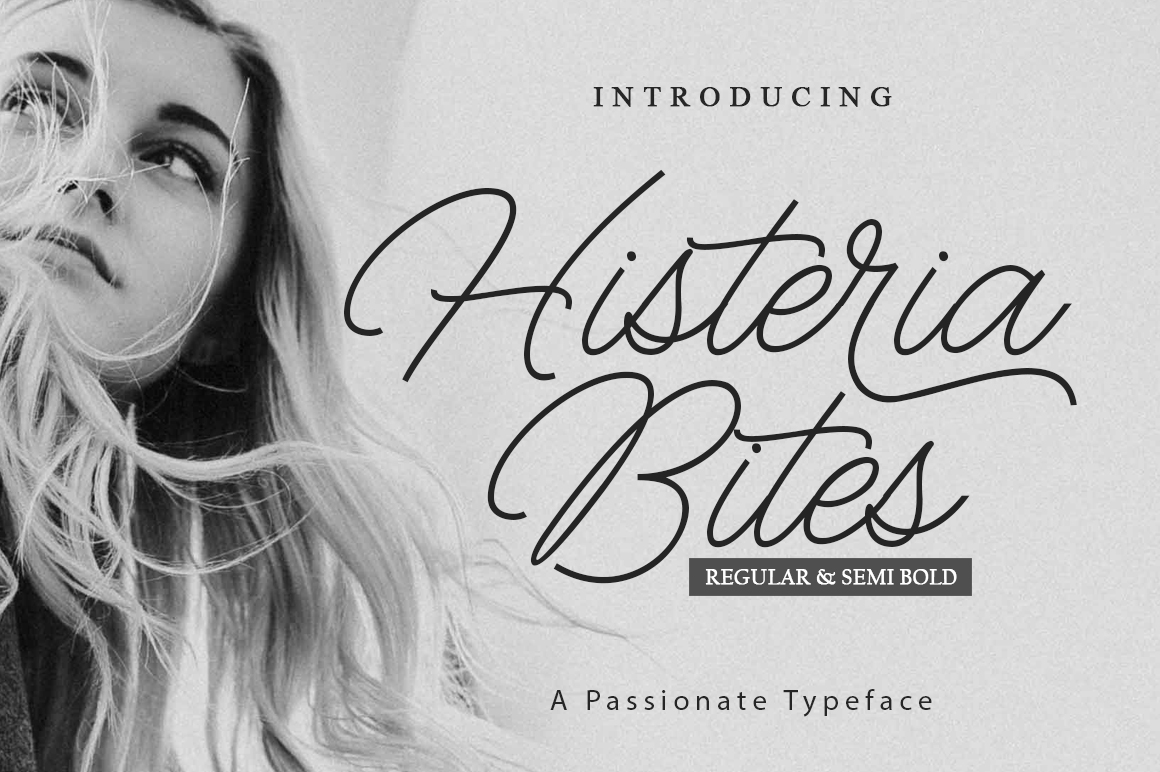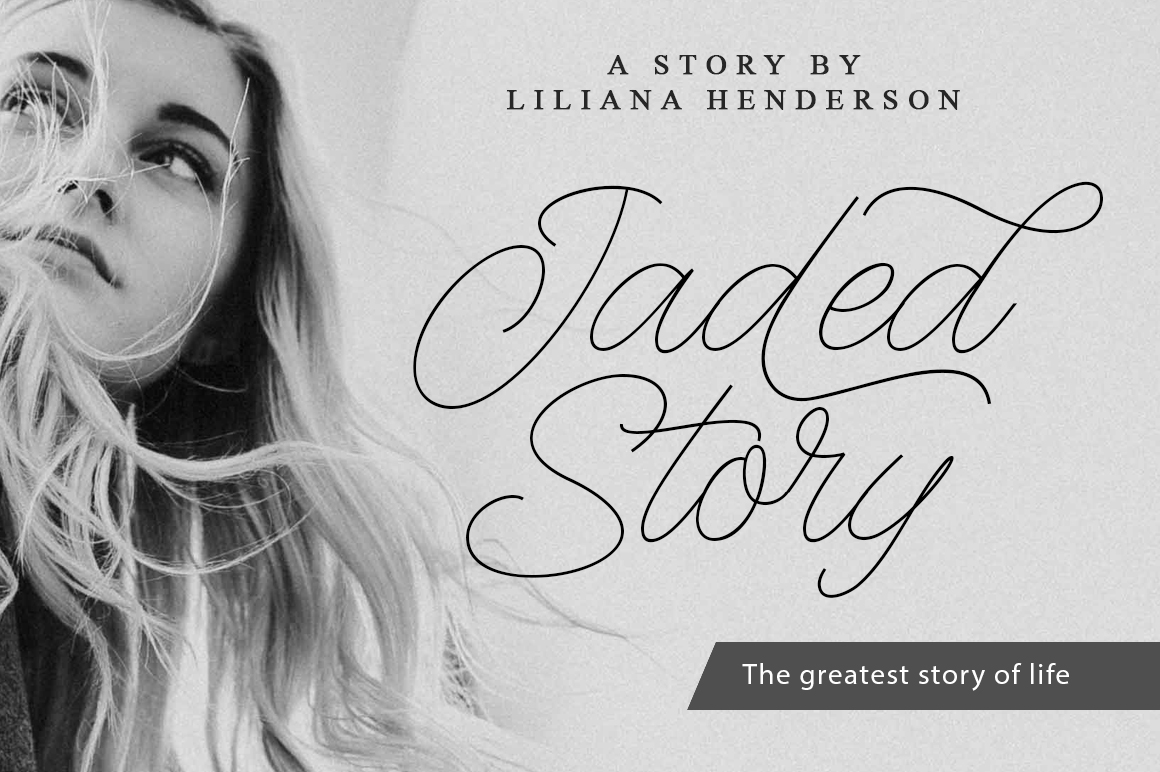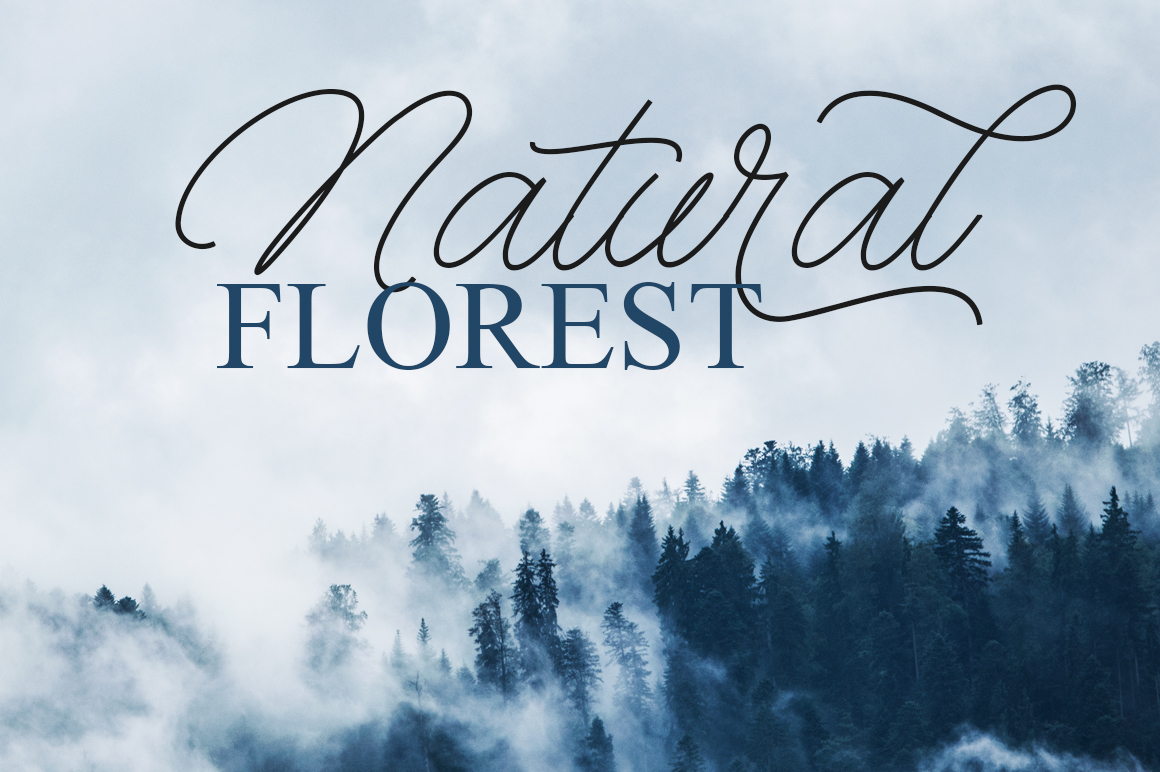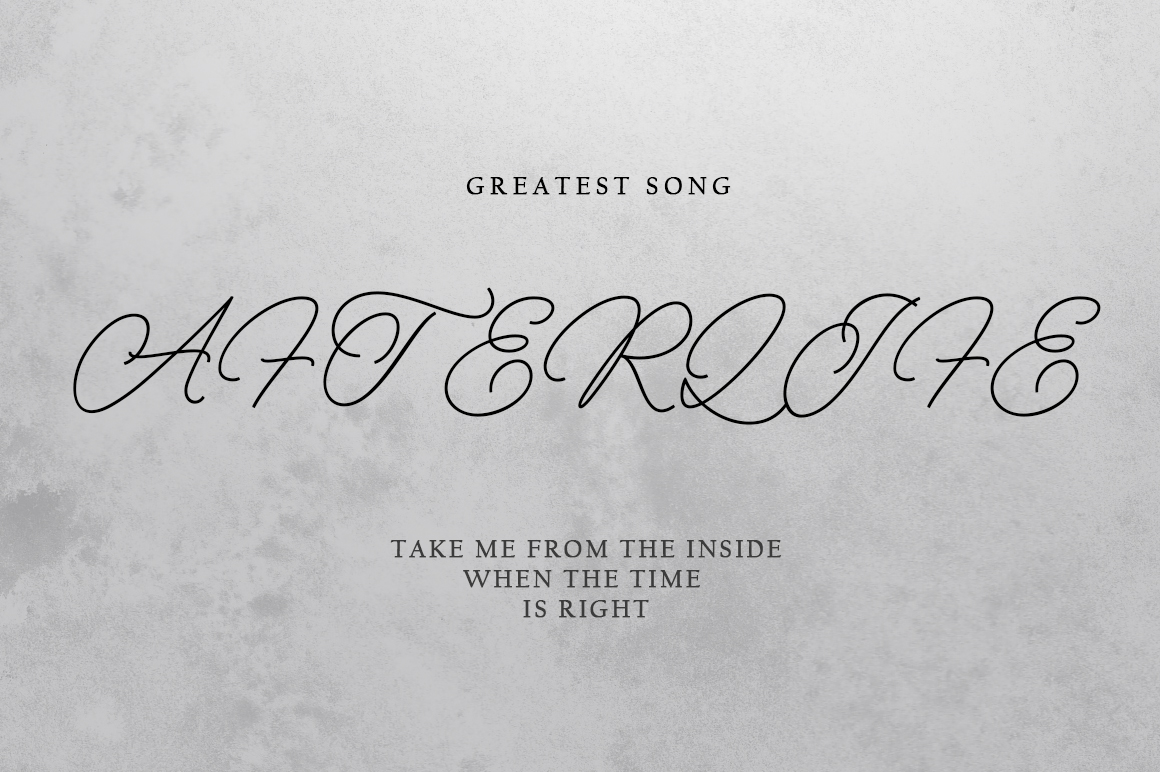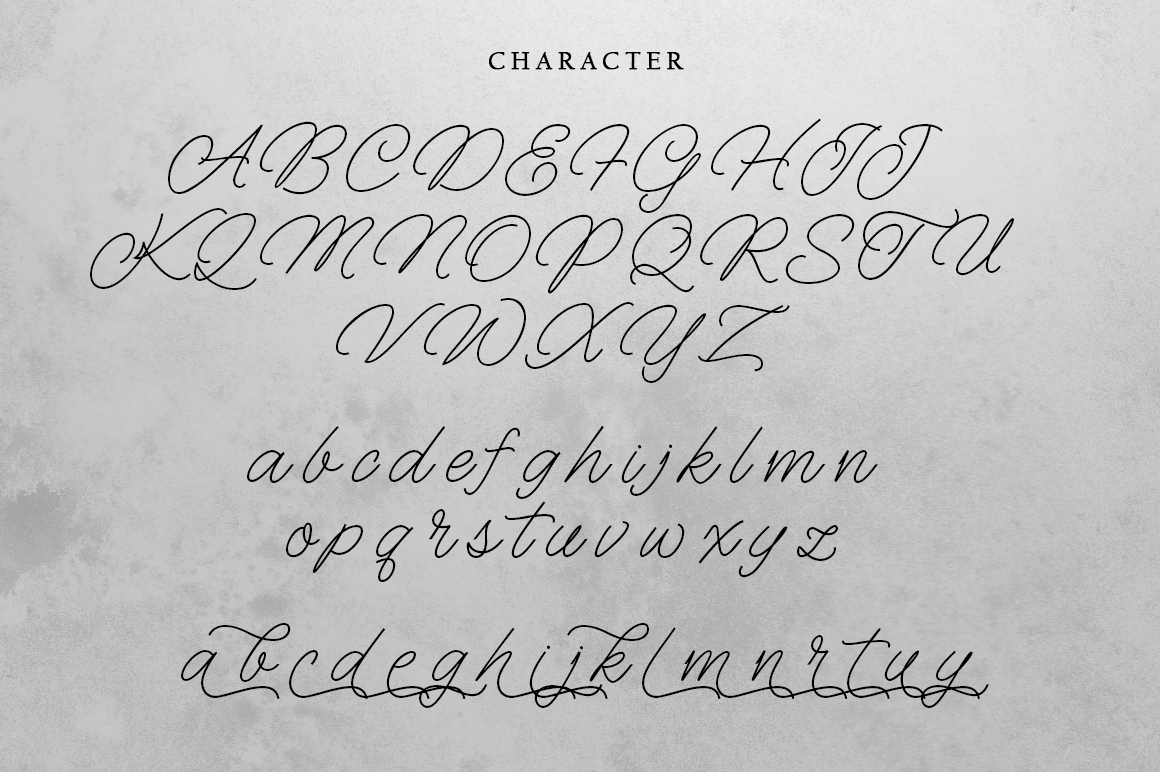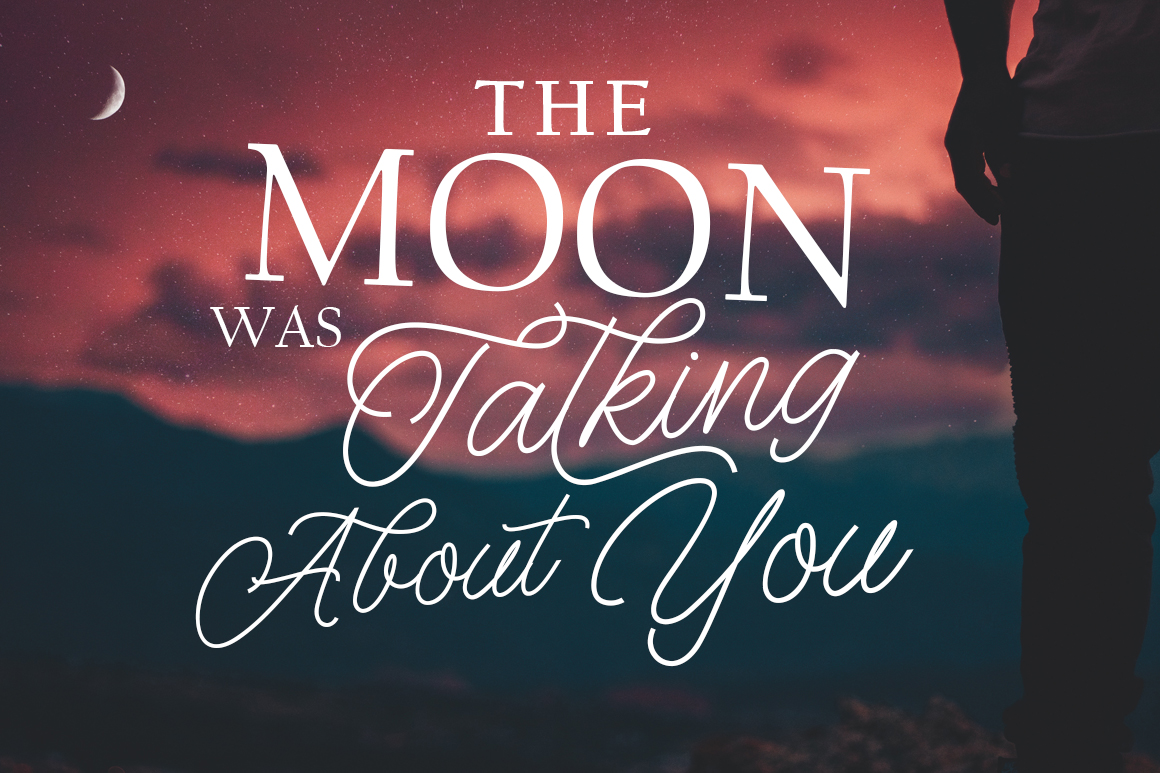
About Histeria Bites Font
Extremely modern and on-trend, Histeria Bites is a striking monoline font. Add flourish to any number of designs, all the while keeping the design clean and modern. Add this lovely freebie to your creations and take your designs to the next level!